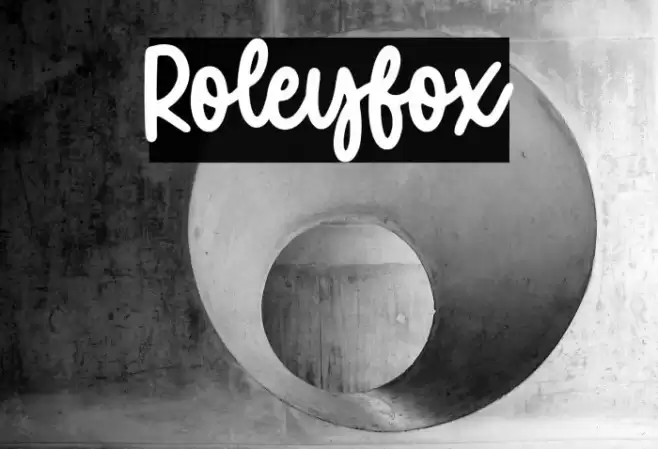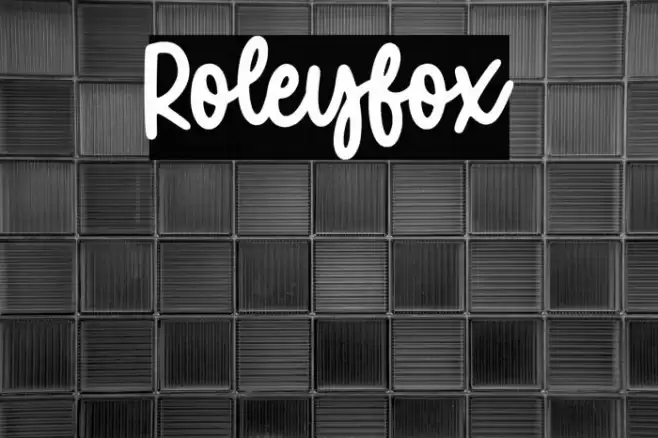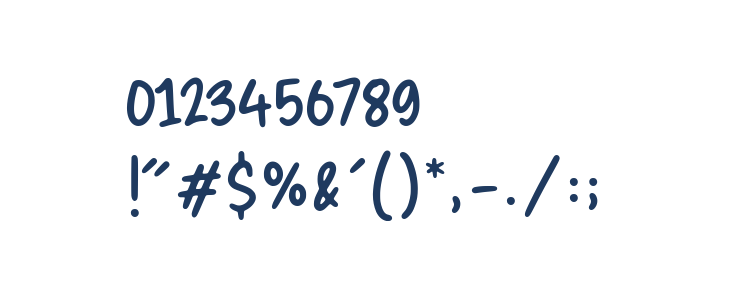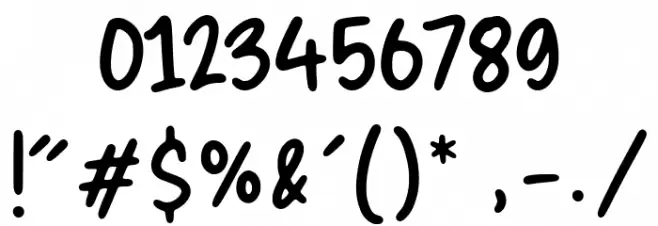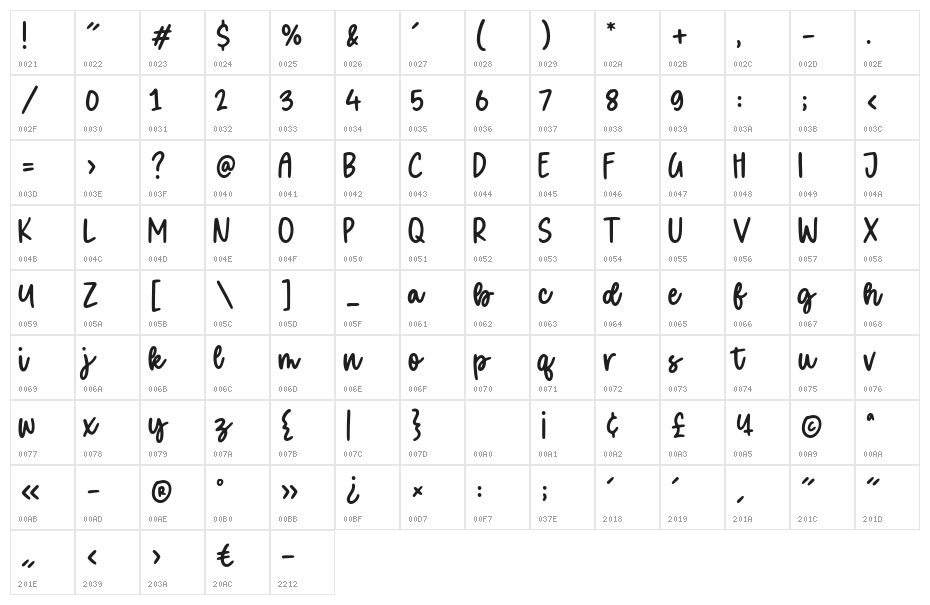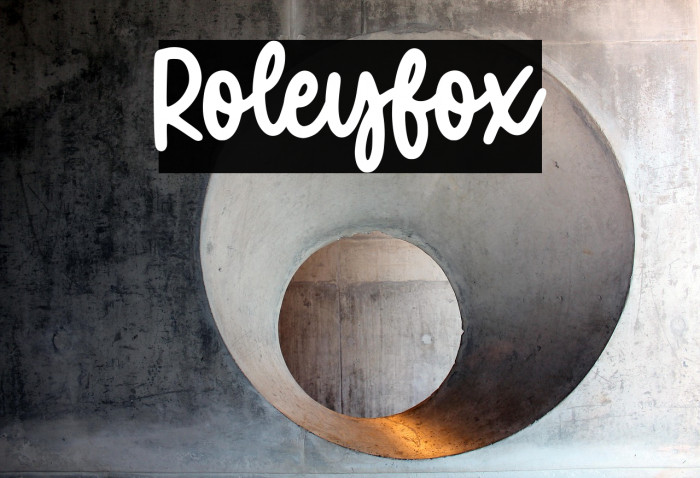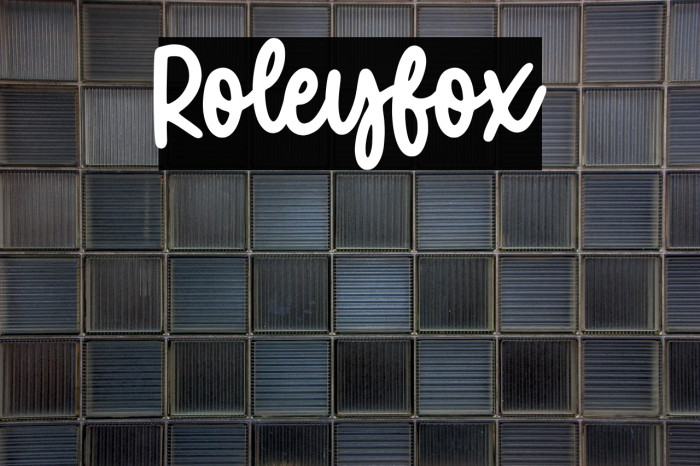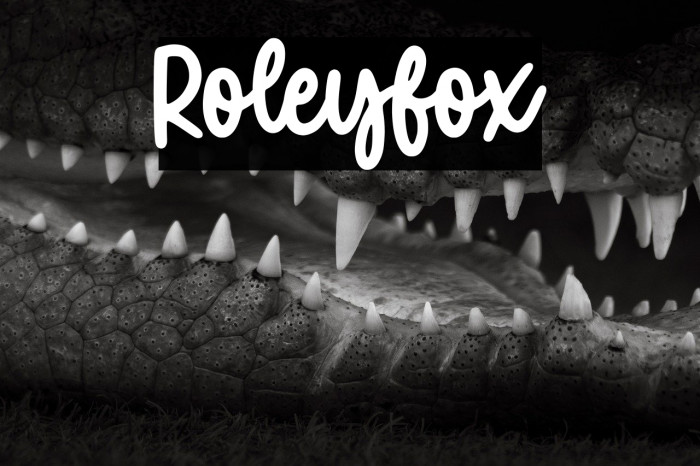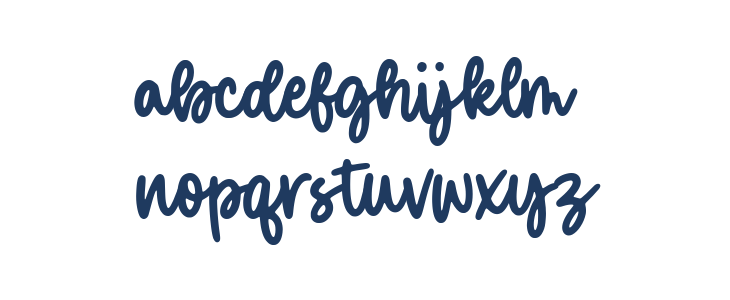
Roleyfox Font
Roleyfox Description
This font features a playful and casual handwritten style, characterized by its smooth, flowing curves and slightly irregular letterforms. The uppercase letters are bold and rounded, while the lowercase letters maintain a consistent, friendly appearance. The numbers and special characters follow the same playful aesthetic, making it suitable for informal and creative projects. Its legibility is enhanced by the moderate spacing between characters, ensuring clarity even in smaller sizes. The overall design exudes a sense of warmth and approachability, making it ideal for projects that require a personal touch.
A playful, handwritten font with smooth curves and a casual style from Uncategorized fonts.
- Proposed Projects: Ideal for greeting cards, children's books, casual branding, and social media graphics.
- Overall Style: Casual
- Use Case: Headlines, Logos, Informal Text